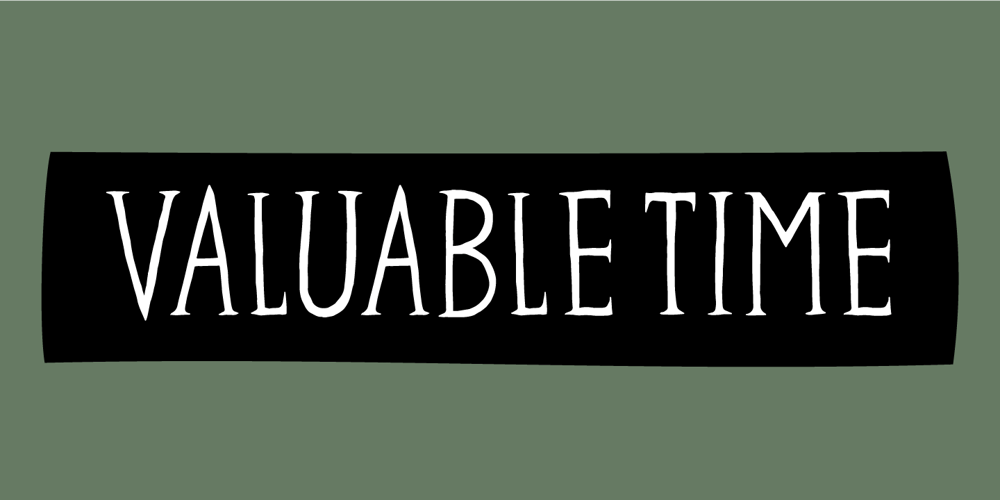
Valuable Time
Valuable Time font
Valuable Time Font Family was designed by Jakob Fischer and published by Bogstav. Valuable Time contains 2 styles and family package options. Sometimes you need a slim, elegant good old fashioned serif font.And, voila! Here you are – Valuable Time fits all those needs.I didn’t spend much time cleaning up the letters, so they stand out just the way they are: organic and handmade!